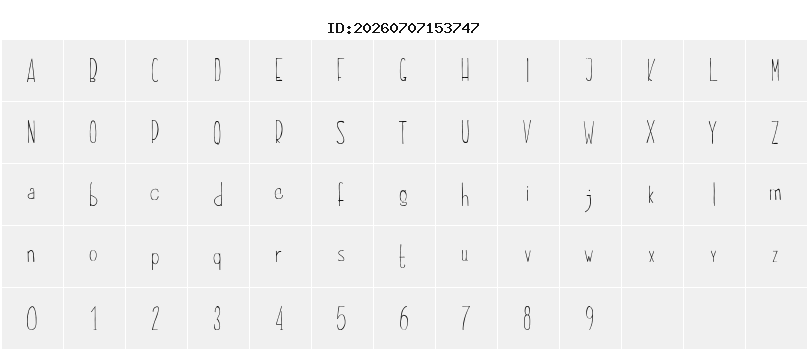
• Font Name: Dayona
• Font Style: Semi-condensed Thin
• Font ID: lughdailh: Dayona Elegant Thin: 2013
• Full Font Name: Dayona Elegant Thin
• PostScript Name: Dayona-Semi-condensedThin
• Character Count: 148
• Manufacturer: lughdailh
About Dayona.ttf
Dayona.ttf is a modern, elegant sans-serif font designed for ultimate readability and visual harmony. Perfect for branding, headlines, web design, and print materials.